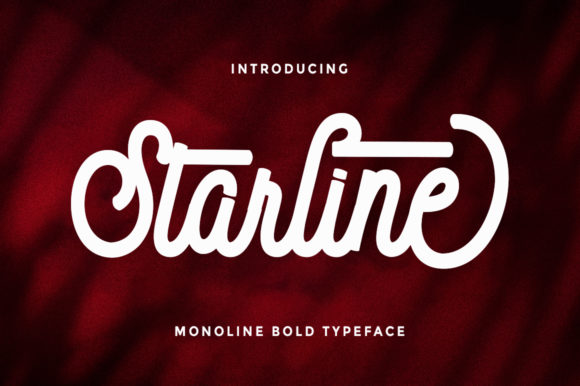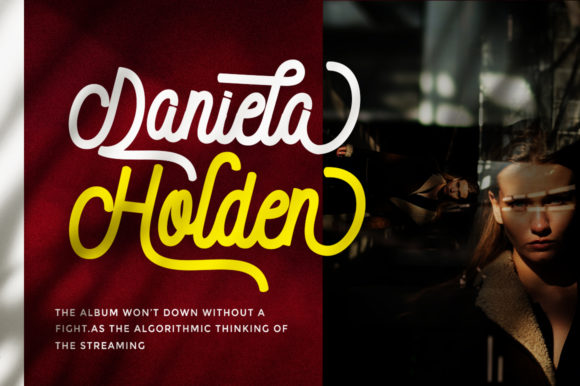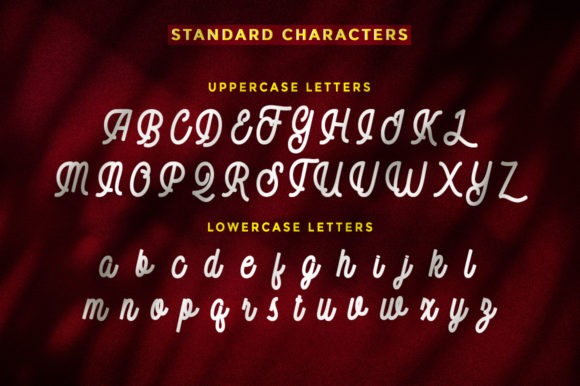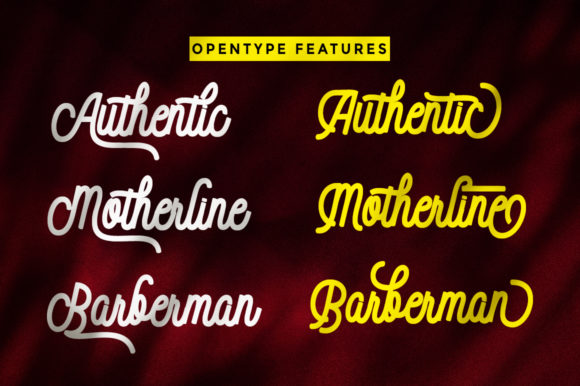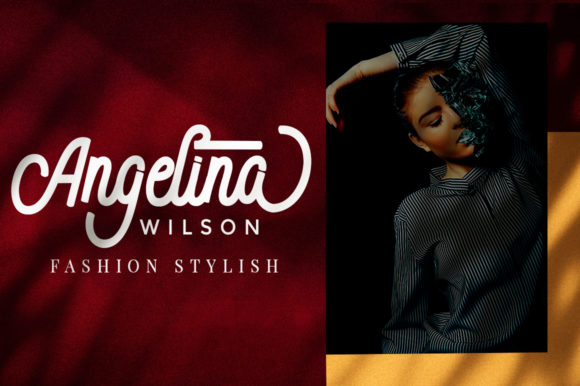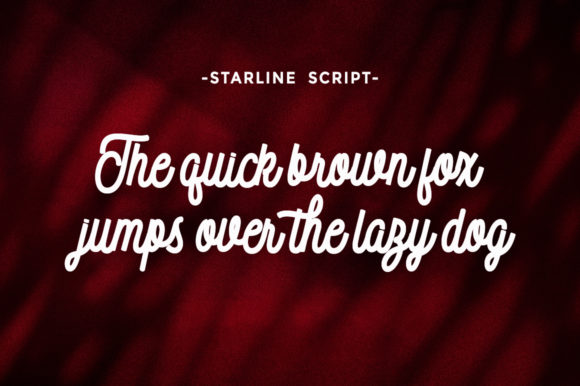
Starline Font
About Starline Font
Starline is a casual handwritten font. This monoline font features dynamic and flowing characters. Whether you’re looking for fonts for Instagram or calligraphy scripts for DIY projects, Starline will turn any creative idea into a true piece of art!